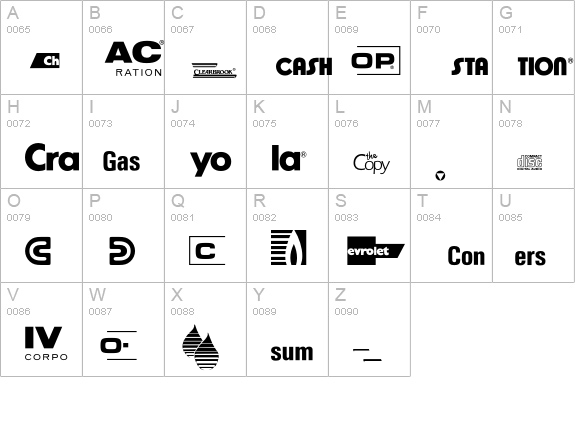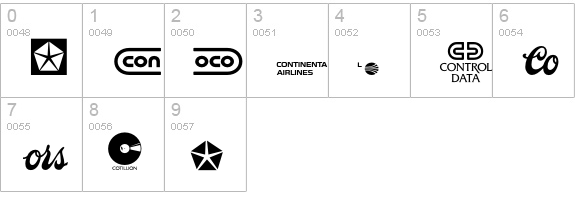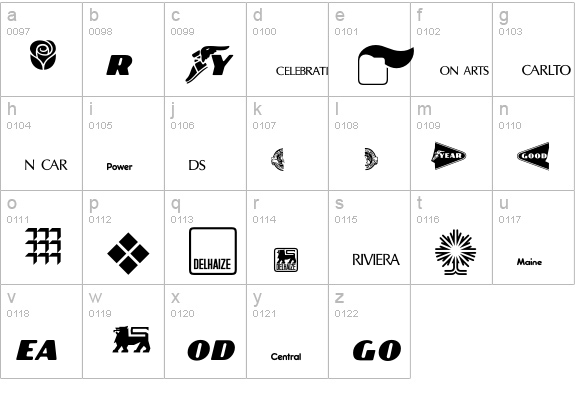
LogosCompanyP05 Font Details
LogosCompanyP05 is a modern and stylish font that exudes elegance and sophistication. With clean lines and sleek curves, this font is perfect for creating professional and eye-catching designs. Whether you're working on a branding project, logo design, or any other creative endeavor, LogosCompanyP05 will elevate your work to the next level. The versatility of this font makes it suitable for various design purposes, from print materials to digital platforms. Best of all, LogosCompanyP05 is available for free download at FontsMarket.com. This means you can access this high-quality font without any cost, making it a valuable addition to your font collection. Don't miss out on the opportunity to enhance your designs with the timeless beauty of LogosCompanyP05. Download it today and let your creativity shine.